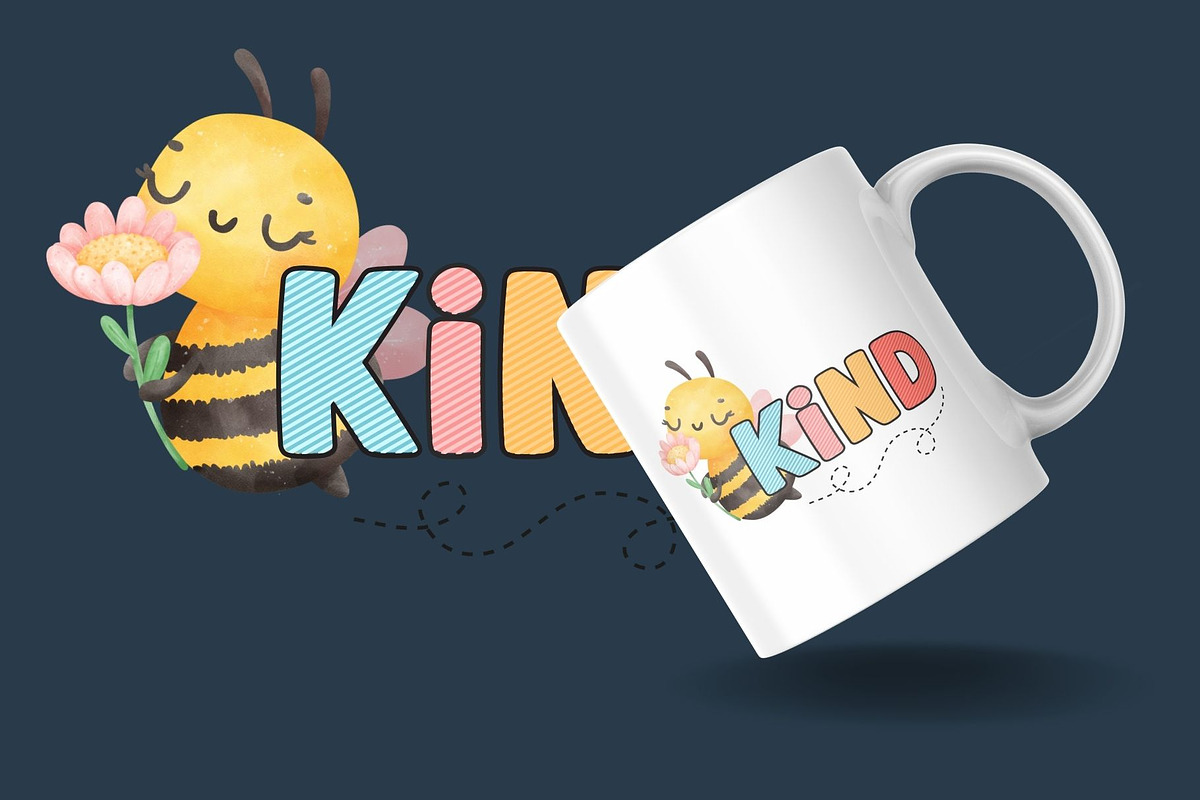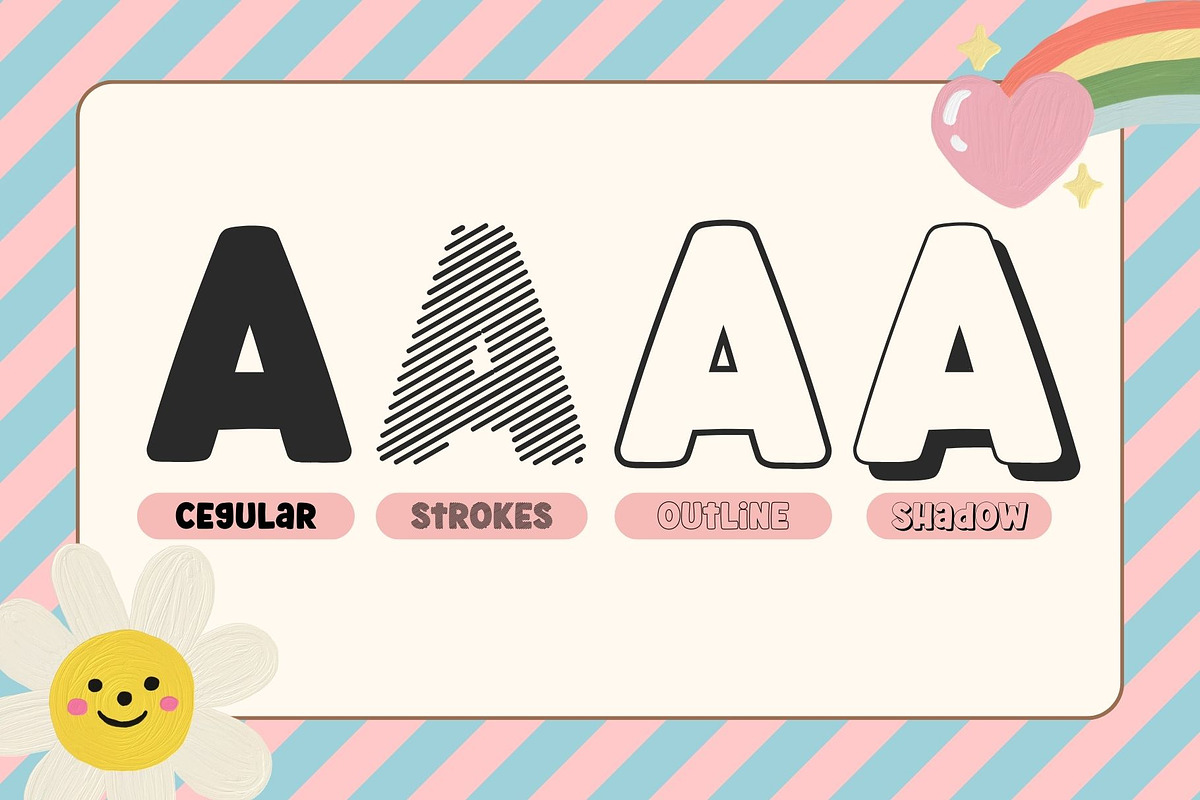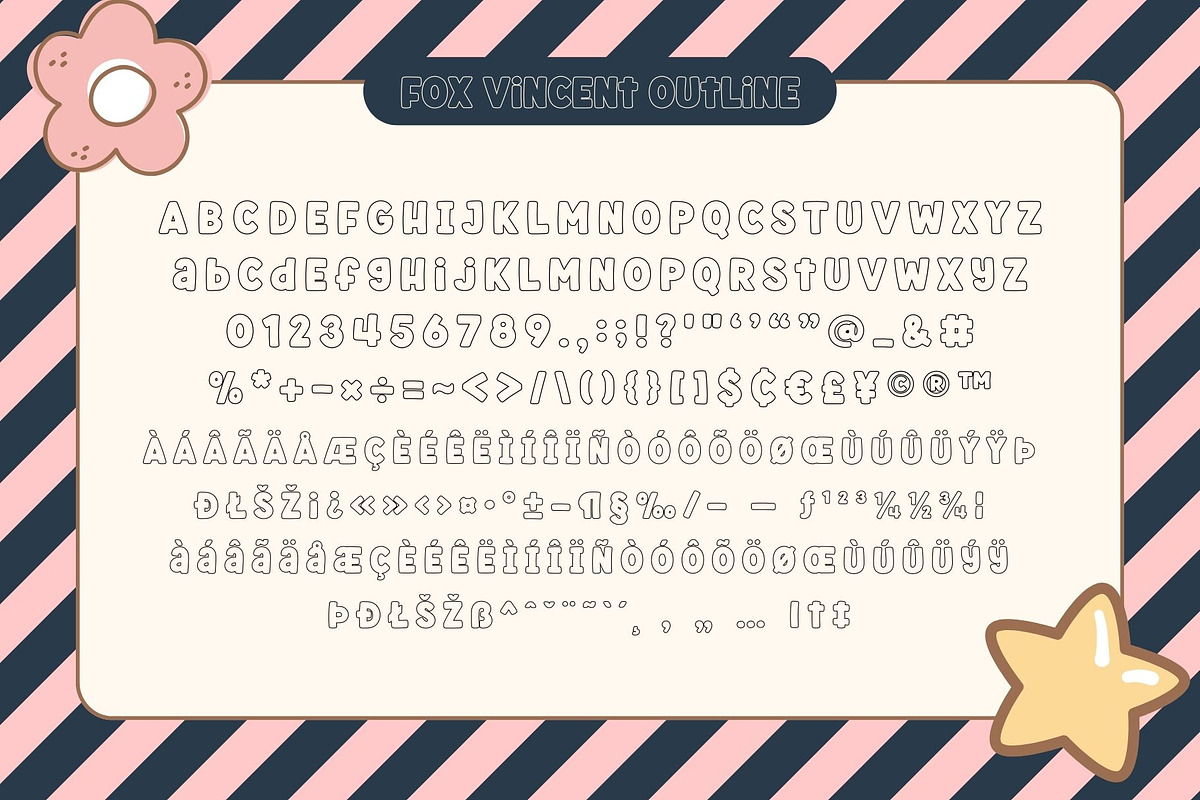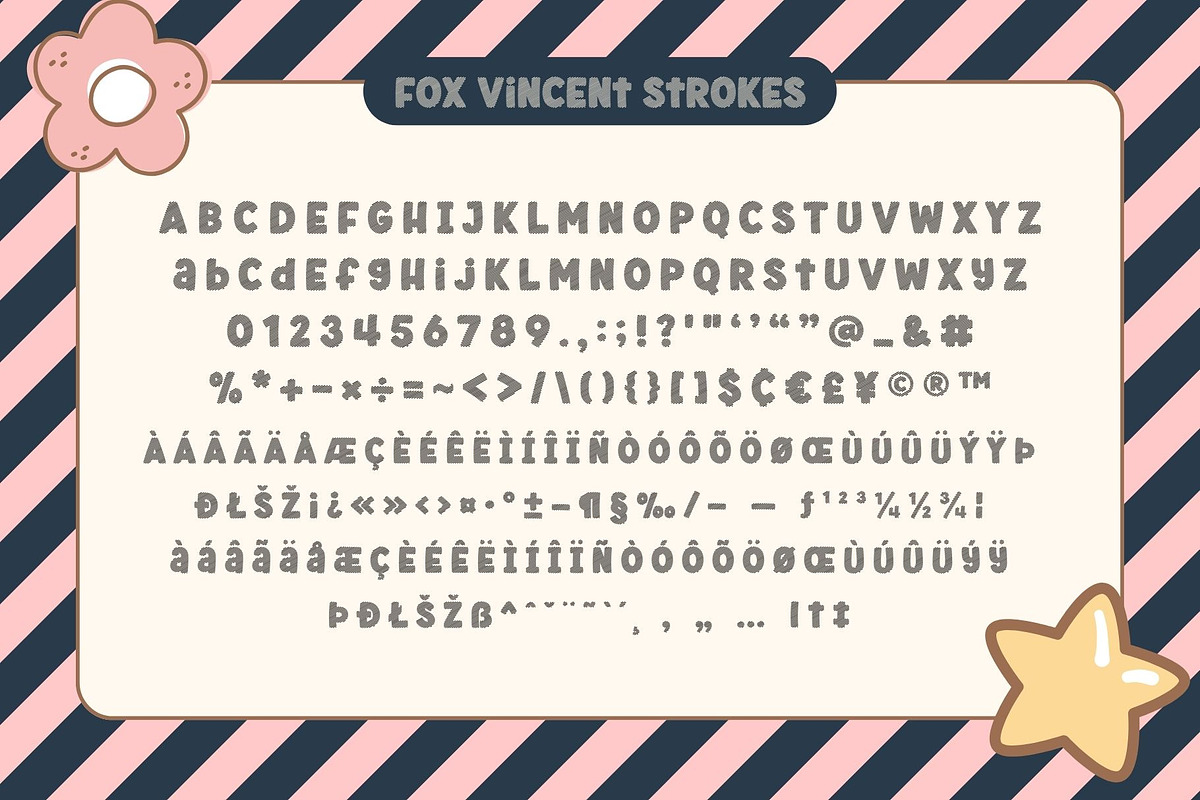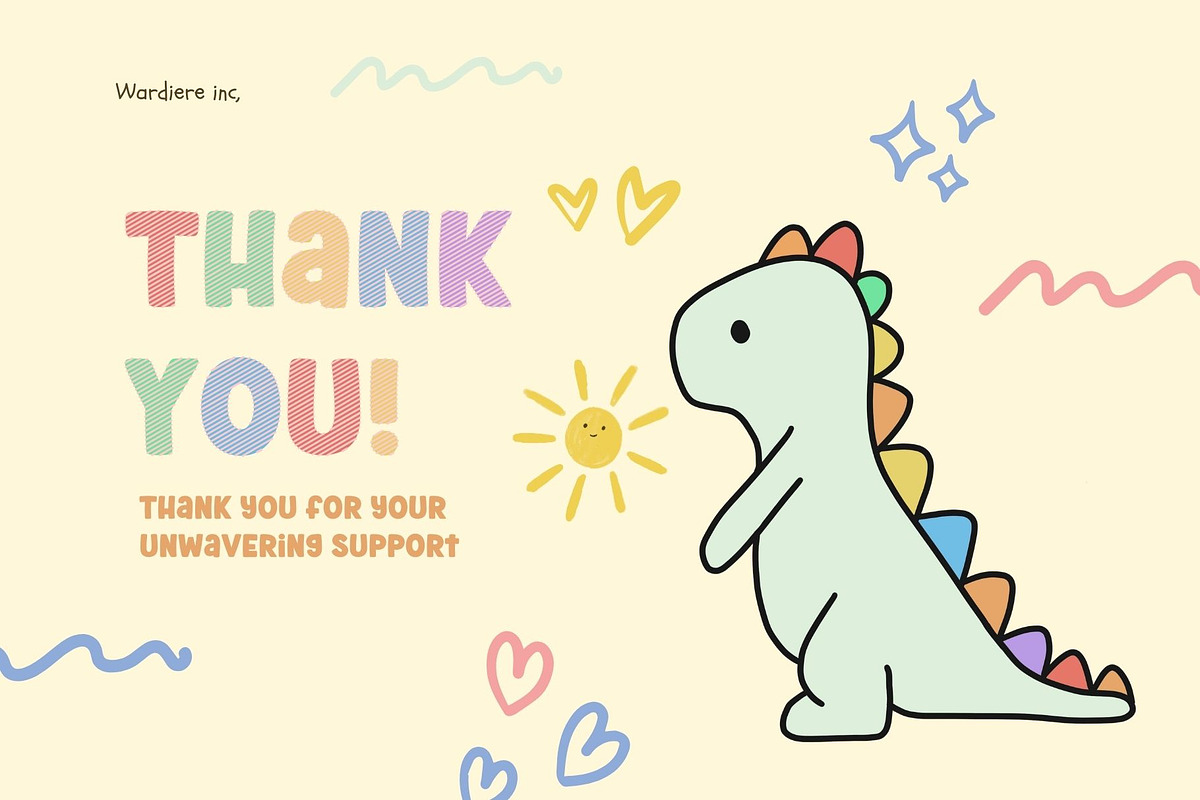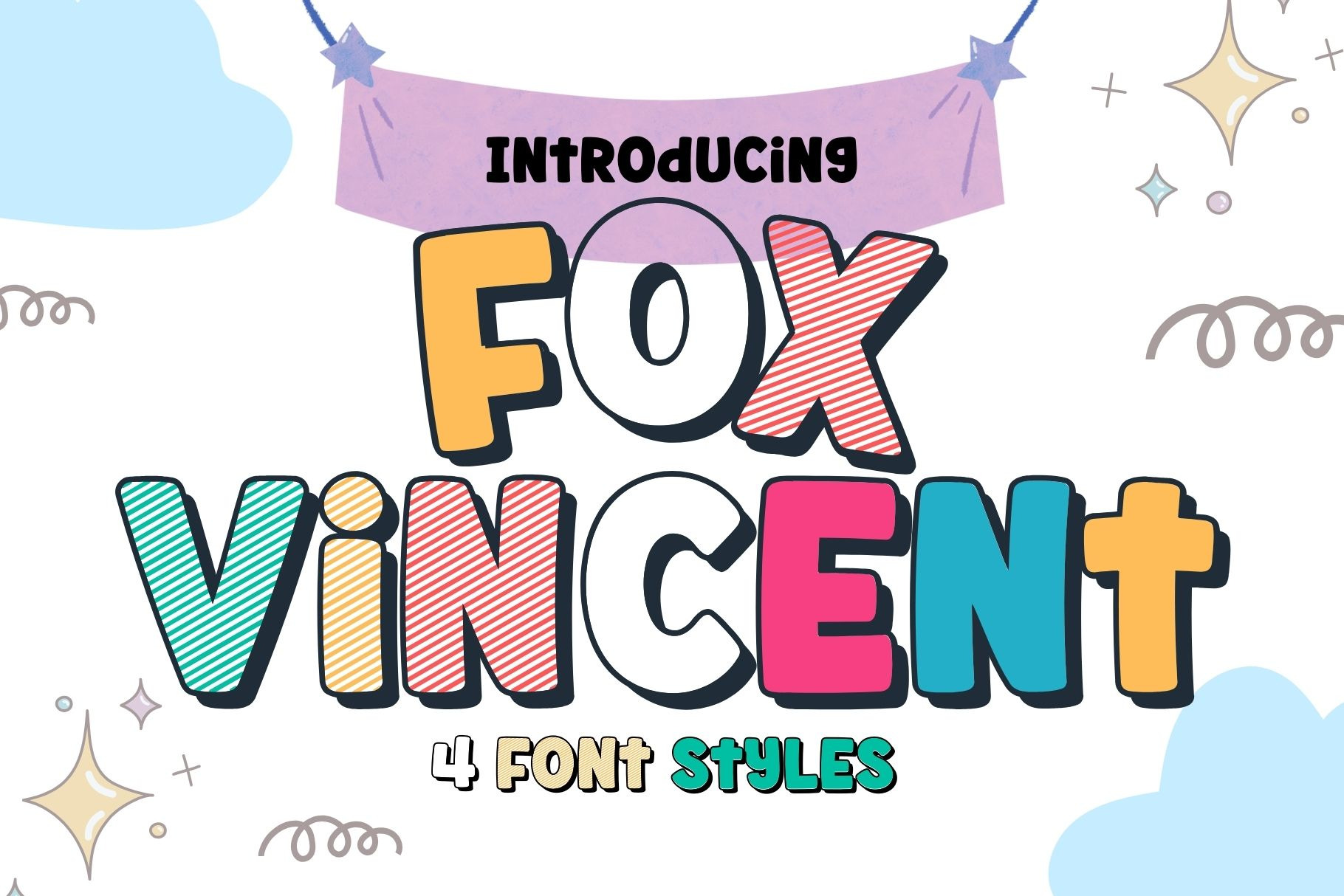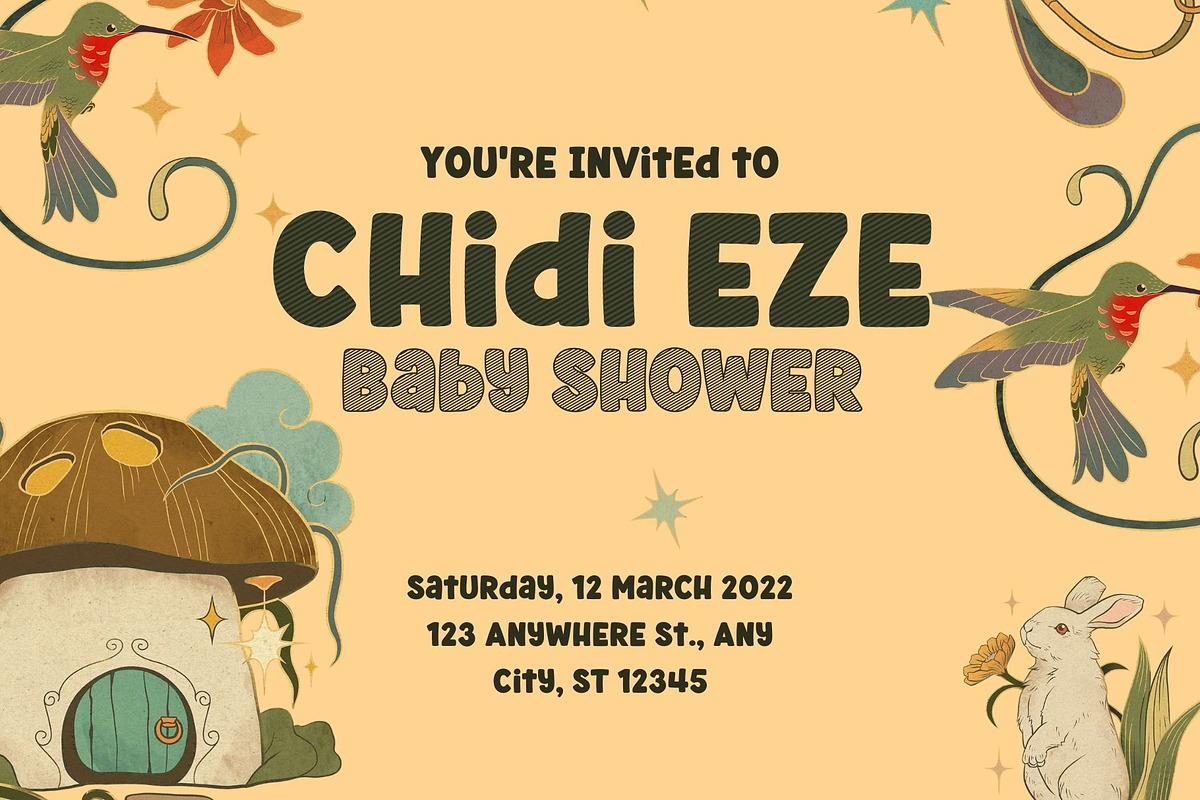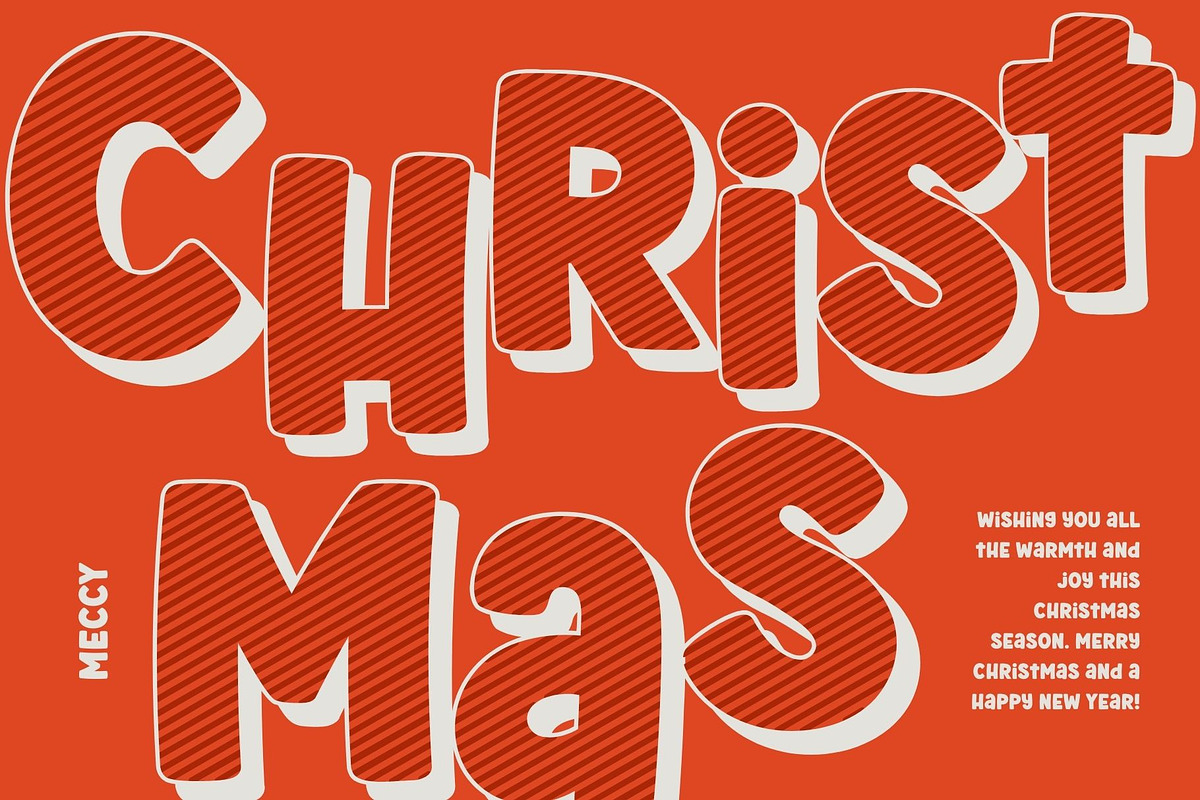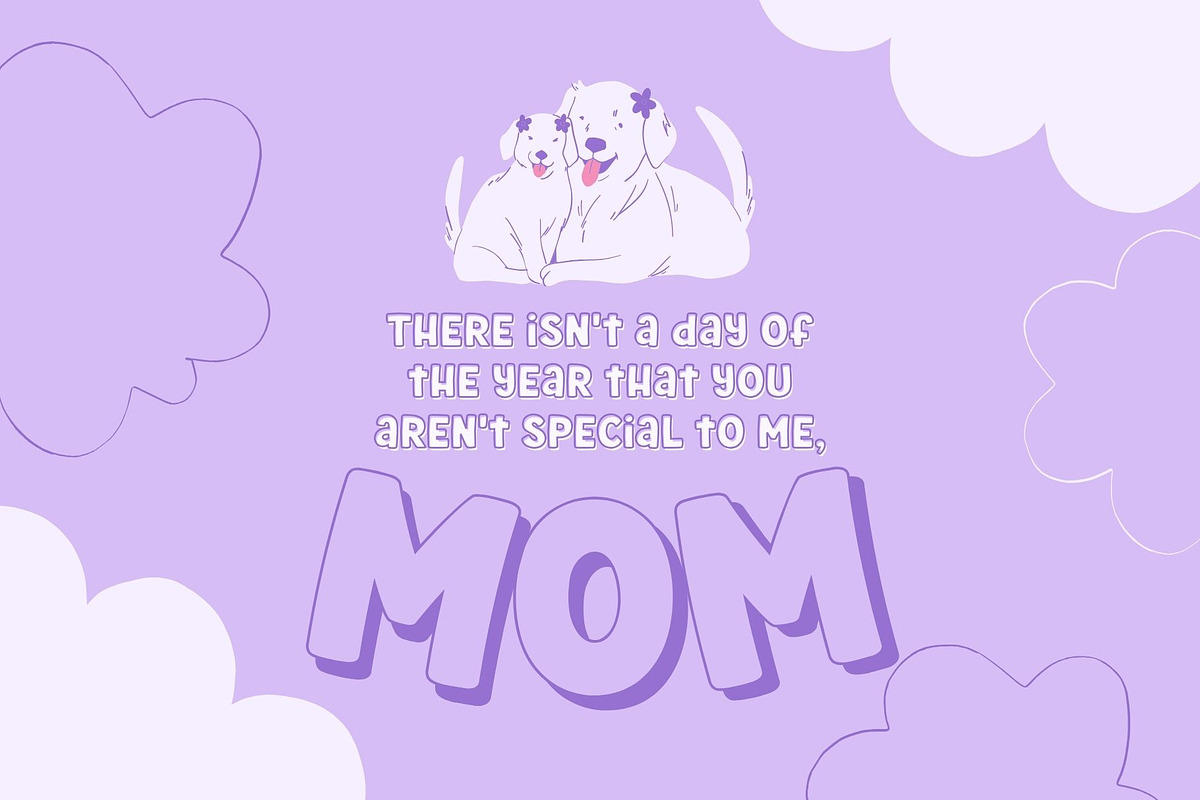
Fox Vincent: 4 Font Styles
Fox Vincent is a versatile display font with four distinct styles, radiating charm and playfulness. Its cool and captivating design infuses energy into any project, making it perfect for publications, menus, logos, business cards, or even t-shirts. The vibrant and expressive nature of these fonts sets them apart, allowing you to create eye-catching headlines, dynamic typography for apparel, bold banners, product labels, and much more.